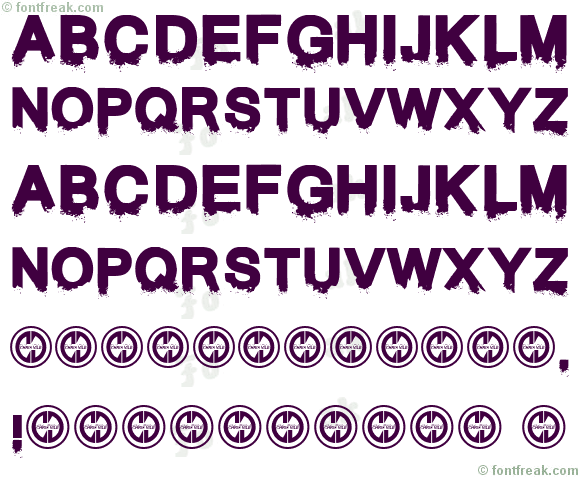
They Perished
The "They Perished" font by Chris Vile is a striking display typeface that falls into the decorative category. Its bold, rugged design features heavy stroke weights and a high contrast between thick and thin lines, creating a visually impactful appearance. The letters exhibit a distressed texture, evoking a sense of rawness and intensity that can be both captivating and memorable. The spacing between characters is generous, allowing for a clear and legible presentation, even in larger sizes.
This font is particularly well-suited for a variety of creative applications. It excels in movie posters, where its dramatic flair can captivate audiences and convey a strong thematic message. Additionally, it can be effectively used in album covers, especially for genres that embrace edgy aesthetics. Restaurant menus seeking a unique and bold identity can also benefit from the "They Perished" font, as it adds an element of character that can intrigue diners. Furthermore, its distinctive style makes it a great choice for event flyers and promotional materials aimed at a youthful, energetic audience.
The target audience for this font includes graphic designers looking to incorporate a bold statement into their projects, small business owners wishing to stand out in a competitive market, and content creators who want to add an element of drama to their work.
What sets the "They Perished" font apart is its ability to evoke emotion and intrigue through its unique visual characteristics. Its strong personality makes it an excellent choice for those seeking to convey a sense of urgency or intensity in their designs. For anyone interested in incorporating this powerful typeface into their projects, the "They Perished font free download" offers an exciting opportunity to elevate creative works with a distinctive edge.